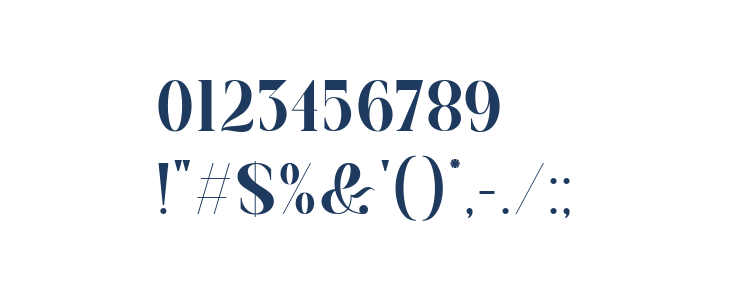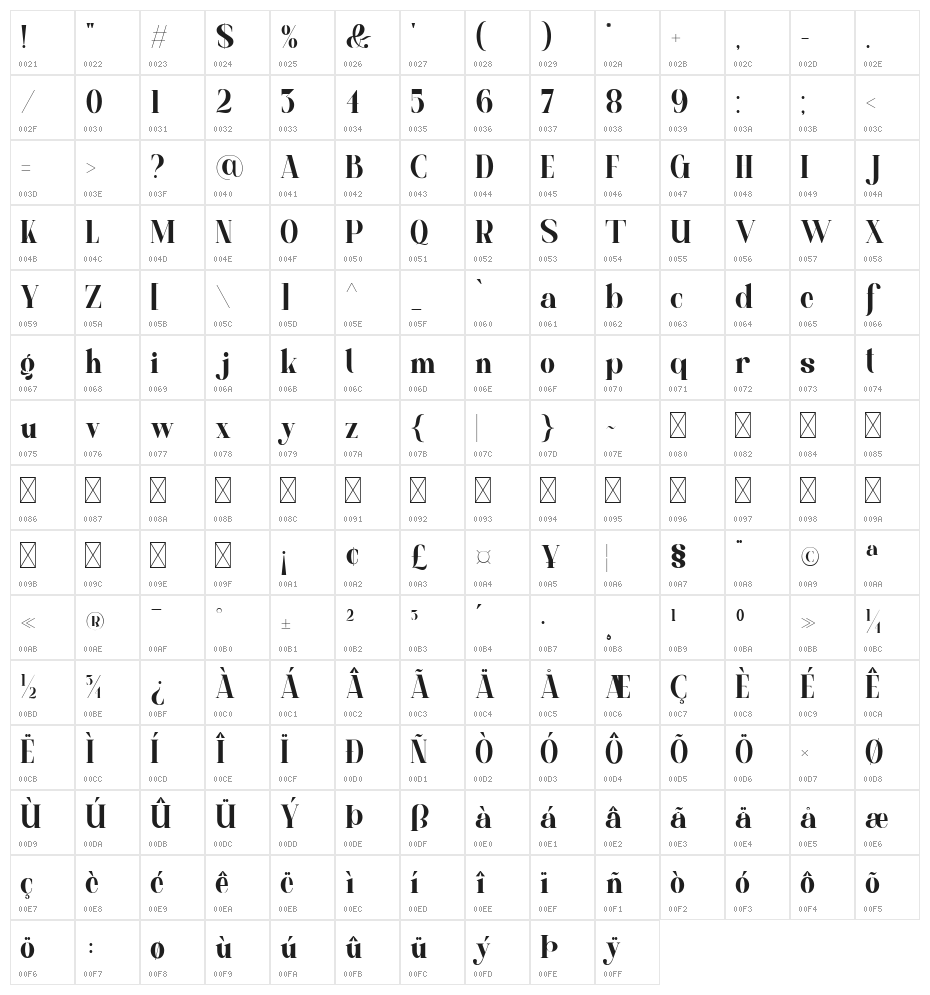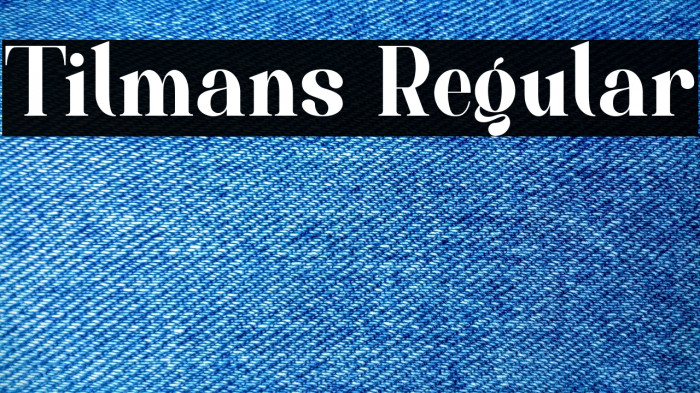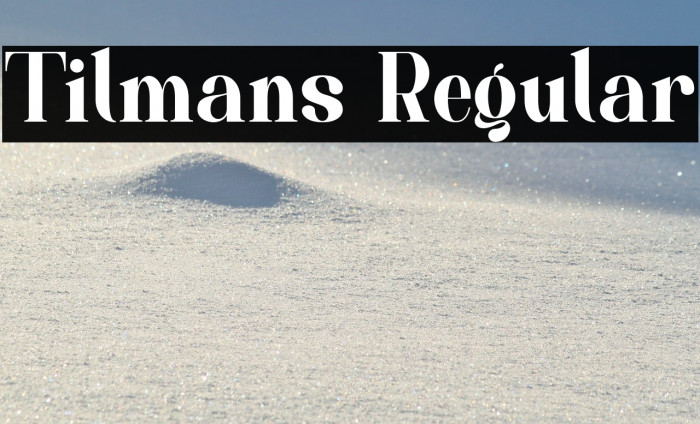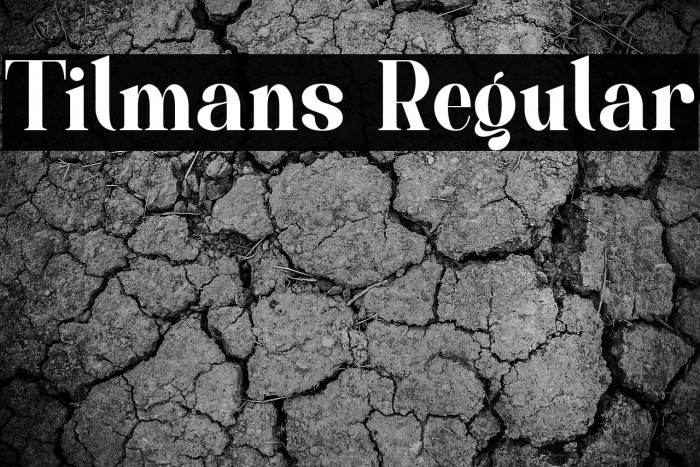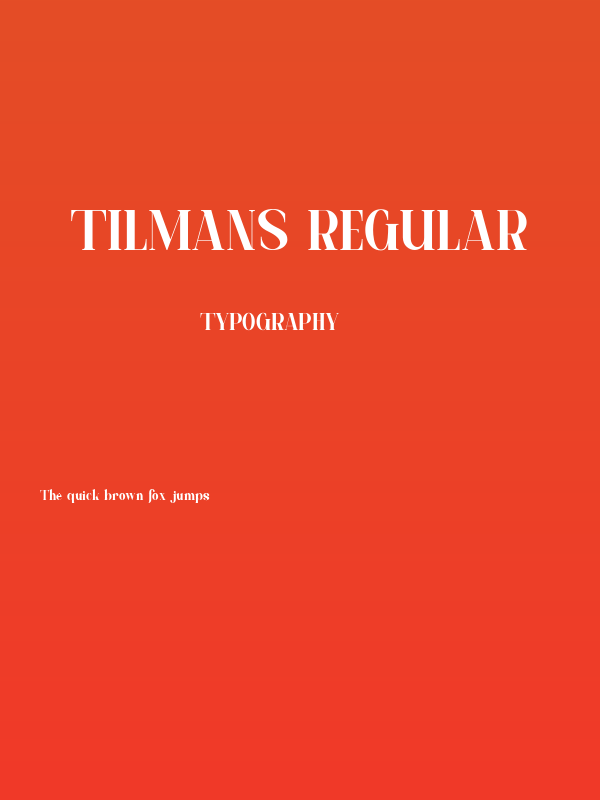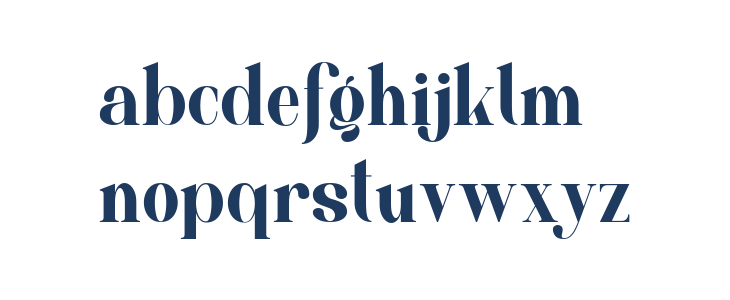
Tilmans Regular Font
Tilmans Regular Description
This font exhibits a bold and striking presence with its high contrast between thick and thin strokes. The uppercase letters are tall and commanding, while the lowercase letters maintain a consistent style that complements the uppercase. The numerals are clear and robust, ensuring readability. Special characters are designed with flair, adding a decorative touch. The serifs are prominent, contributing to a classic yet modern aesthetic. This font is versatile, suitable for a variety of design needs where impact and elegance are desired.
| Use Case | Headlines, Logos, Editorial design |
| Proposed Projects | Ideal for branding, editorial design, posters, and luxury product packaging. |